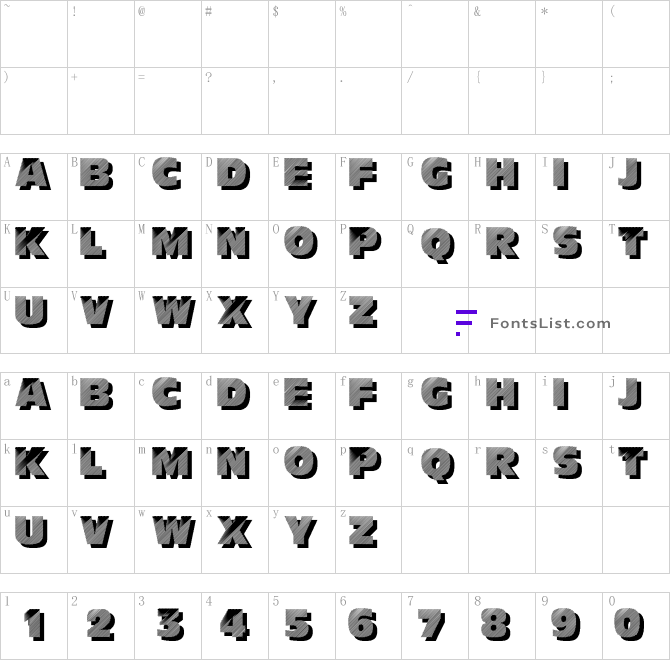
- Font Name:Anthracite
Anthracite.ttf is a very beautiful artistic font, Anthracite.ttf is widely used in the design and printing of various books and pictures,Anthracite.ttf has a strong visual impact,Anthracite.ttf is a commonly used font in newspapers, magazines and books, and is used in posters, e-commerce Poster design, store design, logo design, font design and other fields.Anthracite.